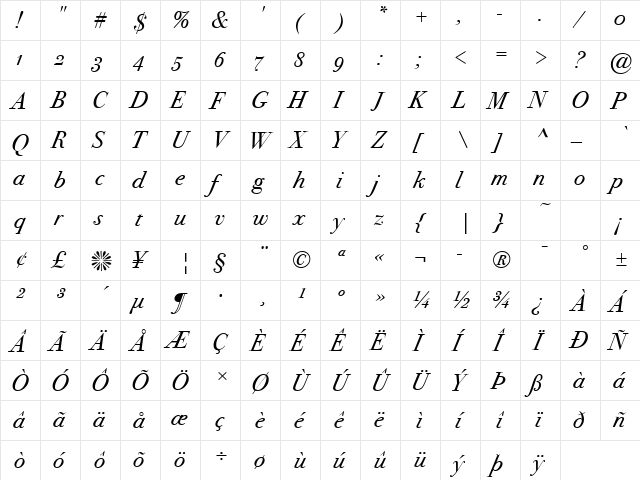
Bodoni SvtyTwo OS ITC TT BookIt
Design Context for Bodoni SvtyTwo OS ITC TT Typeface
Bodoni SvtyTwo OS ITC TT takes a measured approach to typography — its balanced proportions and neutral character make it a reliable workhorse for both digital and print work.